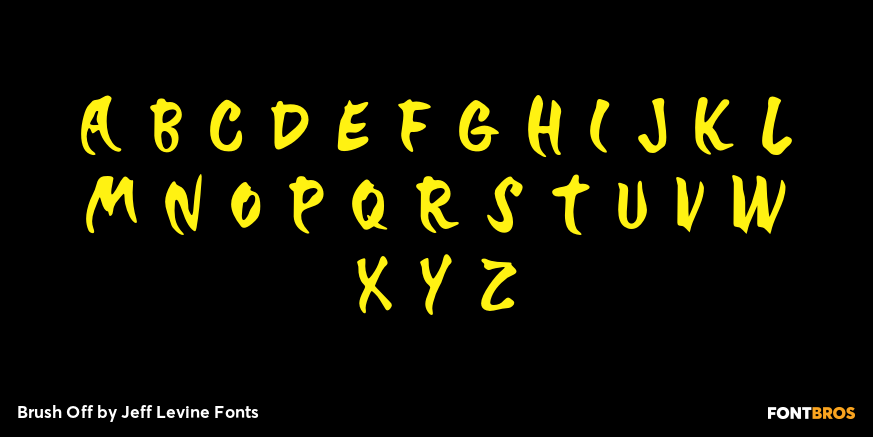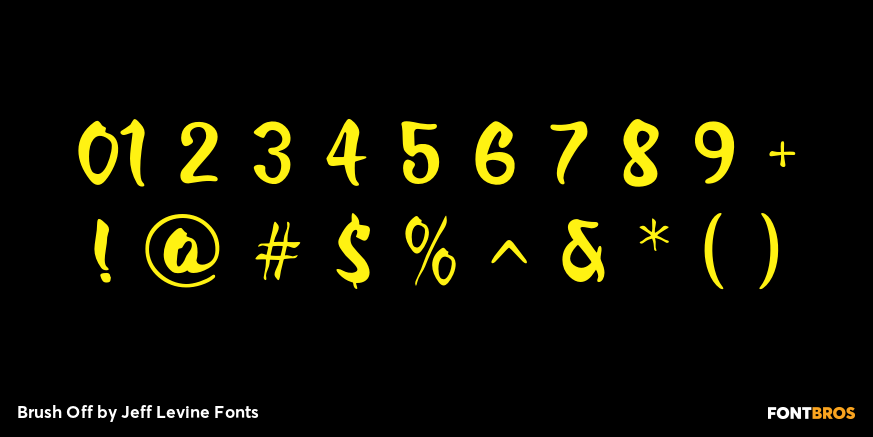
Brush Off
Brush Off JNL is based on the hand-lettered title from the cover of the 1955 sheet music of 'Love is A Many Splendored Thing”.
The unique, artistic and somewhat eccentric letter shapes are both reminiscent of show card lettering and calligraphy. The design is available in both regular and oblique versions.